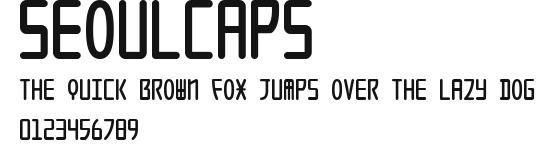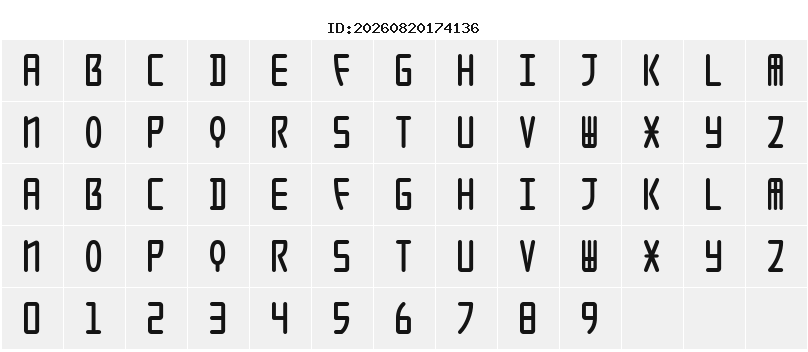
SeoulCaps Preview
• Font Name: SeoulCaps
• Full Font Name: SeoulCaps
About SeoulCaps.ttf
SeoulCaps.ttf is a modern, elegant sans-serif font designed for ultimate readability and visual harmony. Perfect for branding, headlines, web design, and print materials.